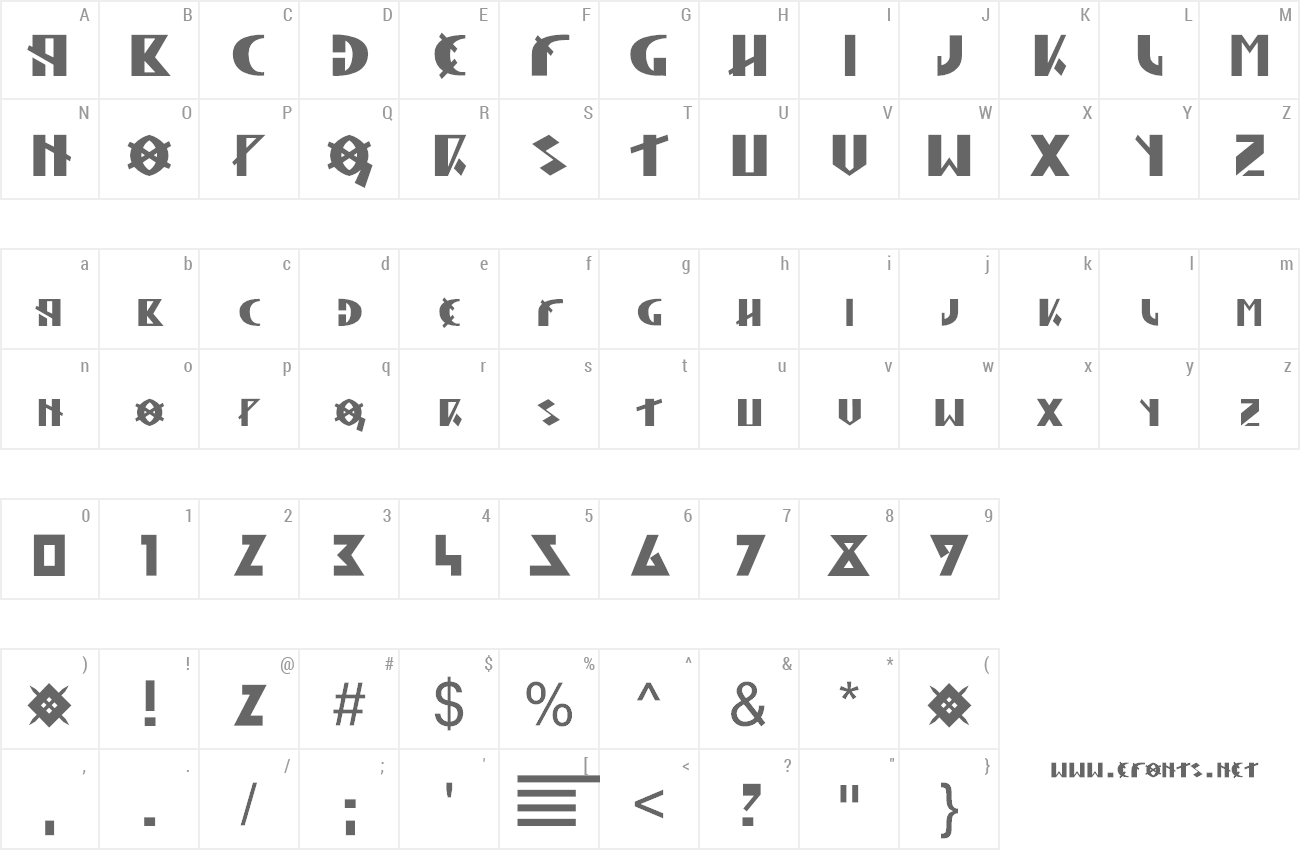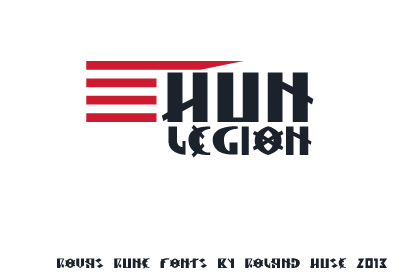
HUN LEGION is inspired by ancient hungarian runes (rovás) There were no small caps in runes, so I just scaled them smaller. The font is related to my previous font „Hargita”. Future updates may follow! This font is free for personal use only. If you need extra character or language extention please contact me at myhandwritings@gmail.com Also feel free to drop me a line in case of questions or feedback.Mostly in case of any problems with the characters, pairs, installation etc. That would also help me in my design work, and would be greatly appreciated! Roland Huse, http://www.rolandhuse.com http://www.myhandwritings.com Enjoy \m/ |